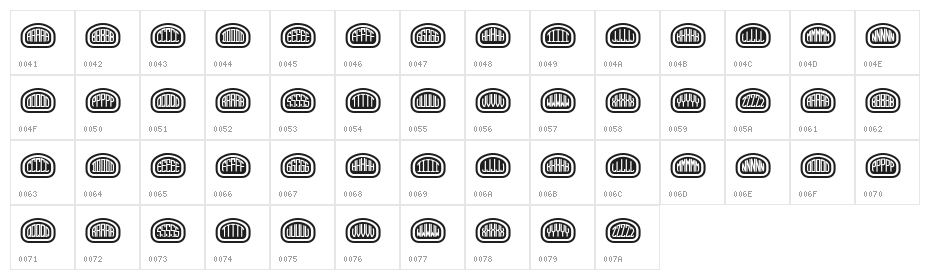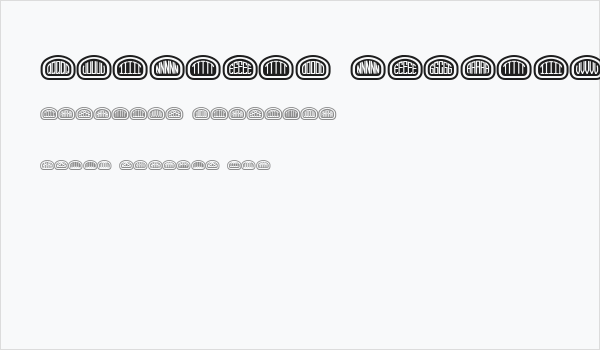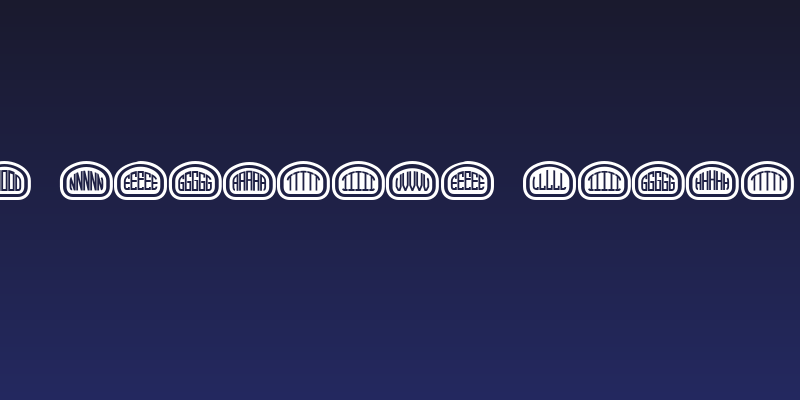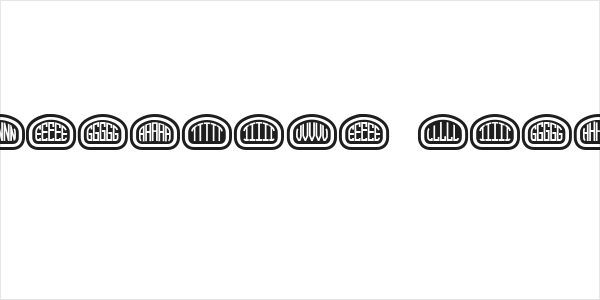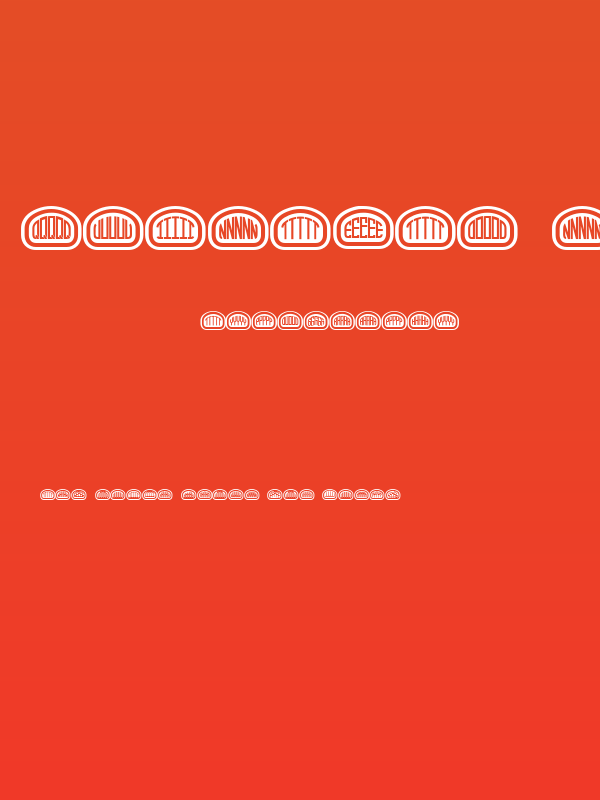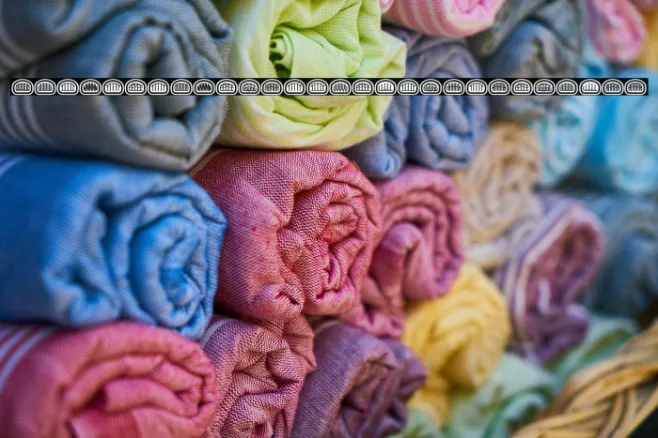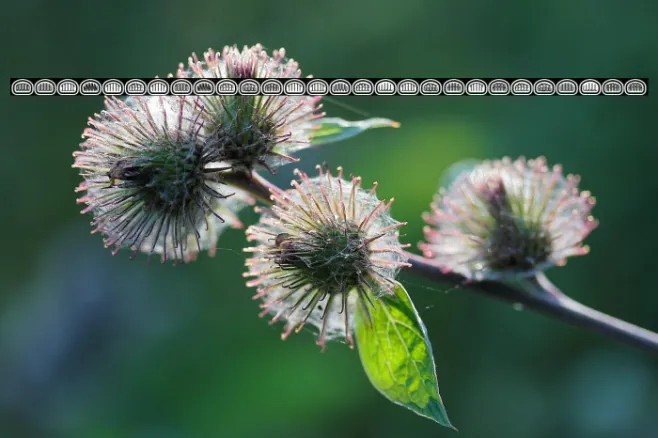
Quinteto Negative Light Regular Font
Quinteto Negative Light Regular Description
This font features a unique, playful design with each character enclosed in a rounded, capsule-like shape. The letters are bold and have a distinct, outlined style that gives them a three-dimensional appearance. The characters are evenly spaced within their capsules, creating a uniform look across the typeface. The font's design is reminiscent of retro or vintage signage, with a modern twist that makes it suitable for contemporary projects. Its boldness and distinct style make it ideal for attention-grabbing headlines or logos.
| Overall Style | Retro, Modern |
| Proposed Projects | Ideal for branding, logos, posters, and any project requiring a bold, eye-catching typeface. |